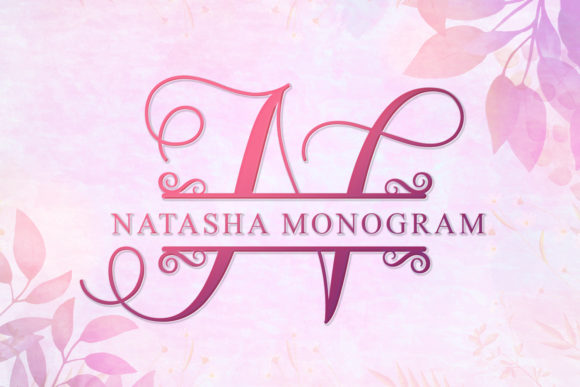
Unleash an Enchanting Tale with Natasha Monogram Font: Your Access to Elegance and Timeless Charm
Embark on a captivating journey as you discover Natasha Monogram Font, a decorative masterpiece that will leave you spellbound.
With its graceful curves and intricate details, Natasha Monogram is a font that transcends time, adding a touch of elegance and whimsy to any project it graces. Whether you're writing love letters, creating wedding invitations, or designing stunning graphics, Natasha Monogram is the perfect choice for adding a touch of sophistication that will leave a lasting impression.
*Step into a World of Artistic Grace*
As you use Natasha Monogram, you'll find yourself immersed in a world of artistic grace. This font is crafted with the utmost care and attention to detail, ensuring that each letter, flourish, and stroke flows seamlessly into the next. Whether you're using it to create digital designs or craft physical masterpieces, Natasha Monogram will elevate your work to new heights.
*A Journey Through Romance and Beauty*
With Natasha Monogram, every word you write becomes a love letter, every invitation a work of art. Imagine your loved ones gasping in delight as they receive your handwritten notes, each letter perfectly formed and imbued with the spirit of romance. Or picture the joy on their faces as they witness the elegance of your wedding invitations, adorned with Natasha Monogram's delicate touch.
*Discover Endless Creative Possibilities*
Natasha Monogram isn't just confined to the realm of letters and invitations. Its versatile nature extends to a wide range of creative endeavors, limited only by your imagination. Unleash your inner artist as you craft enchanting logos, heartfelt cards, and captivating social media posts. With Natasha Monogram, every project becomes a masterpiece, a reflection of your unique style and creativity.
*A Font that Speaks to the Heart*
In a world of monotonous fonts, Natasha Monogram stands out as a true original, a font that speaks directly to the heart. Its delicate lines and intricate details evoke a sense of nostalgia and charm, reminding us of the beauty that lies in the written word. Let Natasha Monogram be your guide as you explore the depths of your creativity, crafting stories, and designs that resonate with your audience on a profound level.